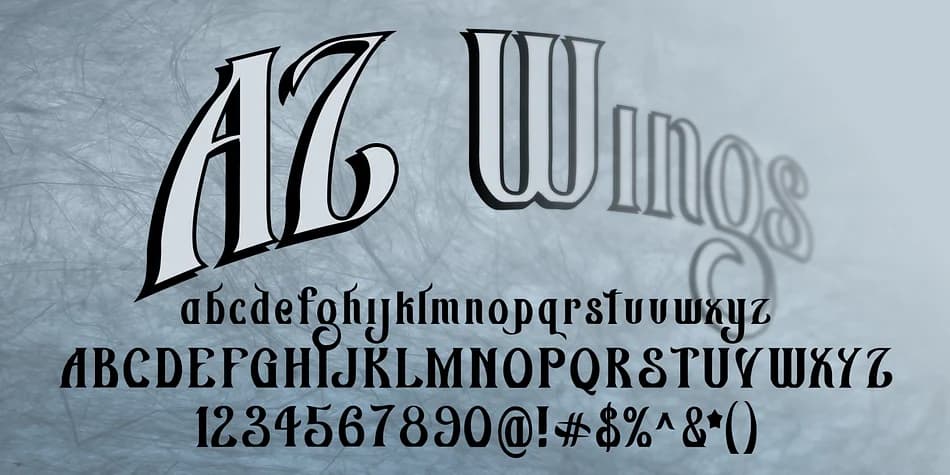
About AZ Wings Font
Picture yourself designing a wedding suite, and you need something that feels both classical and fresh. AZ Wings, created by Artist of Design, brings blackletter sensibilities into contemporary territory without simply copying the historical form. The letterforms work beautifully at display sizes, where those distinctive ascending and descending strokes become the main attraction rather than supporting players.
This is a font that thrives when you want visual weight and personality in your typography. Consider using it for vintage branding packages for artisan shops, theatrical event programs, decorative book covers for special collections, and custom product labels where your headline needs to command real attention. The extended strokes give each letter genuine character, making it memorable even when used solo on luxury boutique signage or special occasion stationery. It's the kind of typeface that doesn't fade into the background no matter the context.
Since AZ Wings was designed specifically for headlines and display work, it performs best at larger point sizes where its unique anatomy can truly breathe and shine. You'll get the most visual impact when you let those distinctive ascenders do what they were made to do. If you need a decorative typeface with backbone and charm, find it on Creative Fabrica and start exploring what those striking forms can bring to your next project.
AZ Wings Font is a decorative font that shines as a display or heading face. Pair it with a clean sans-serif or serif font for body text β the contrast creates a clear hierarchy while the two styles stay balanced and easy to read.
AZ Wings Font